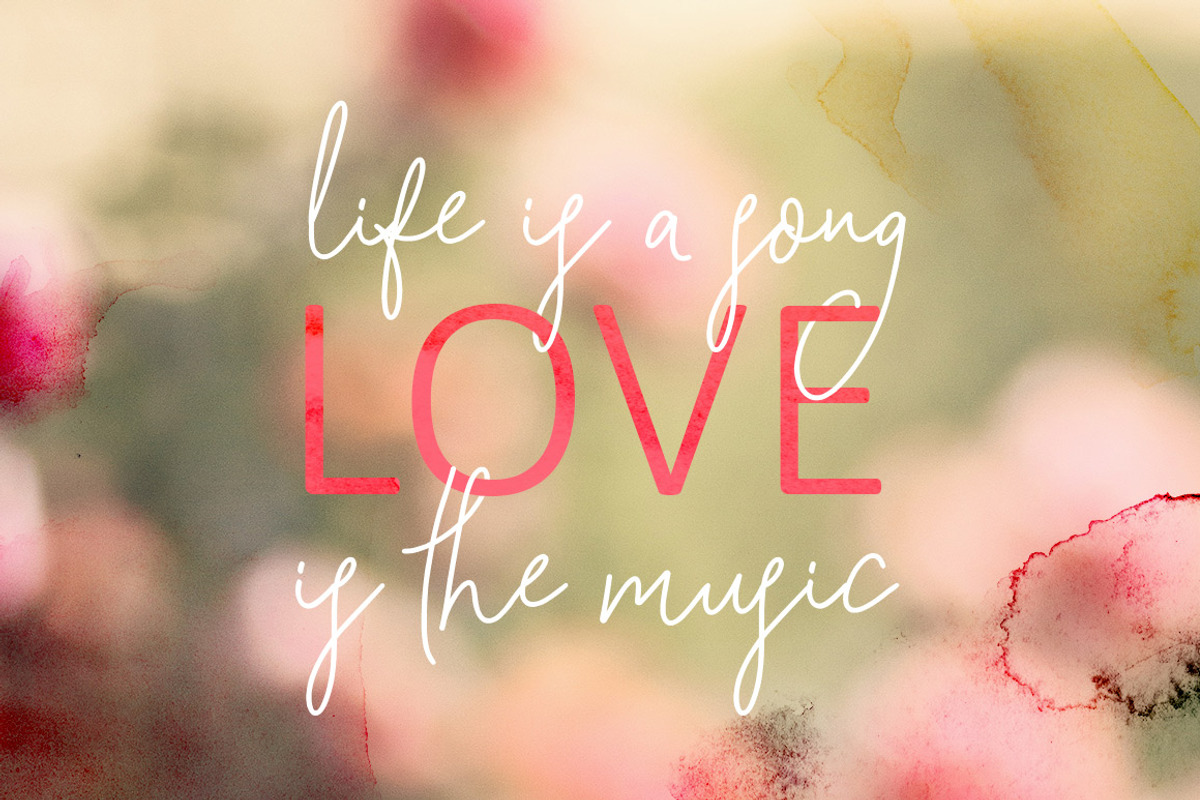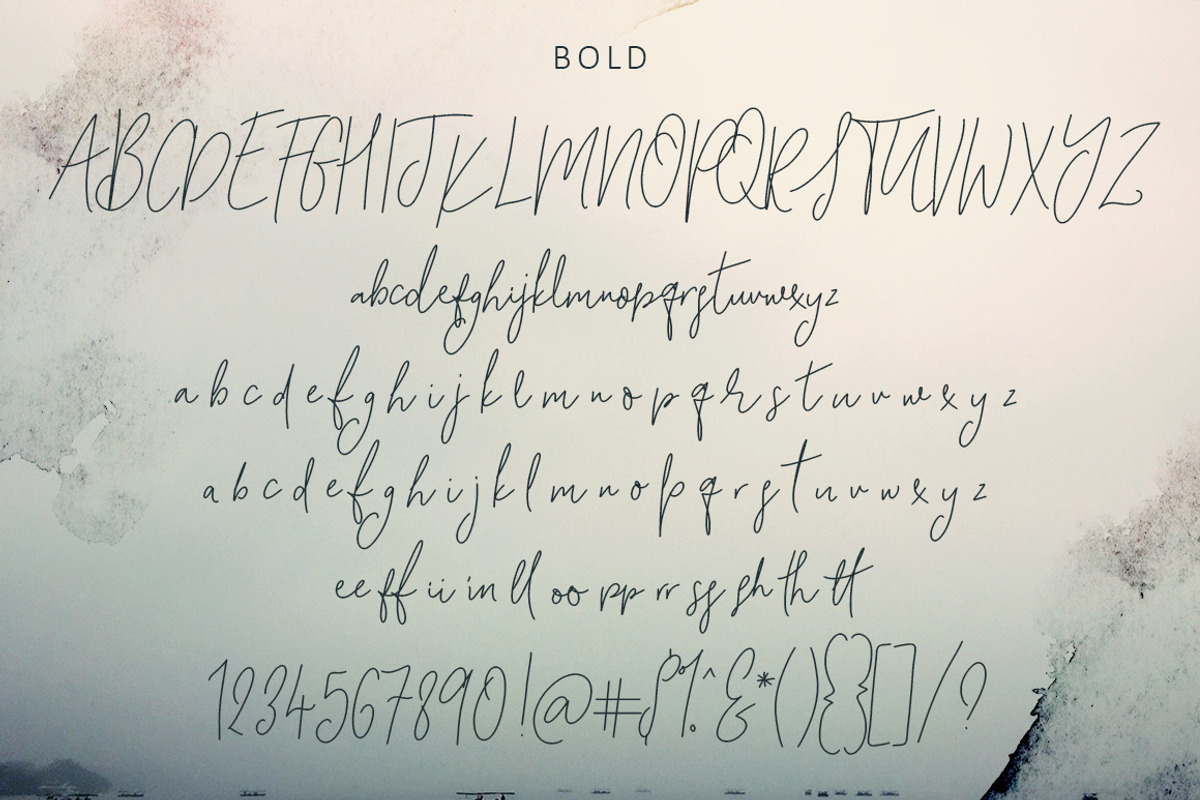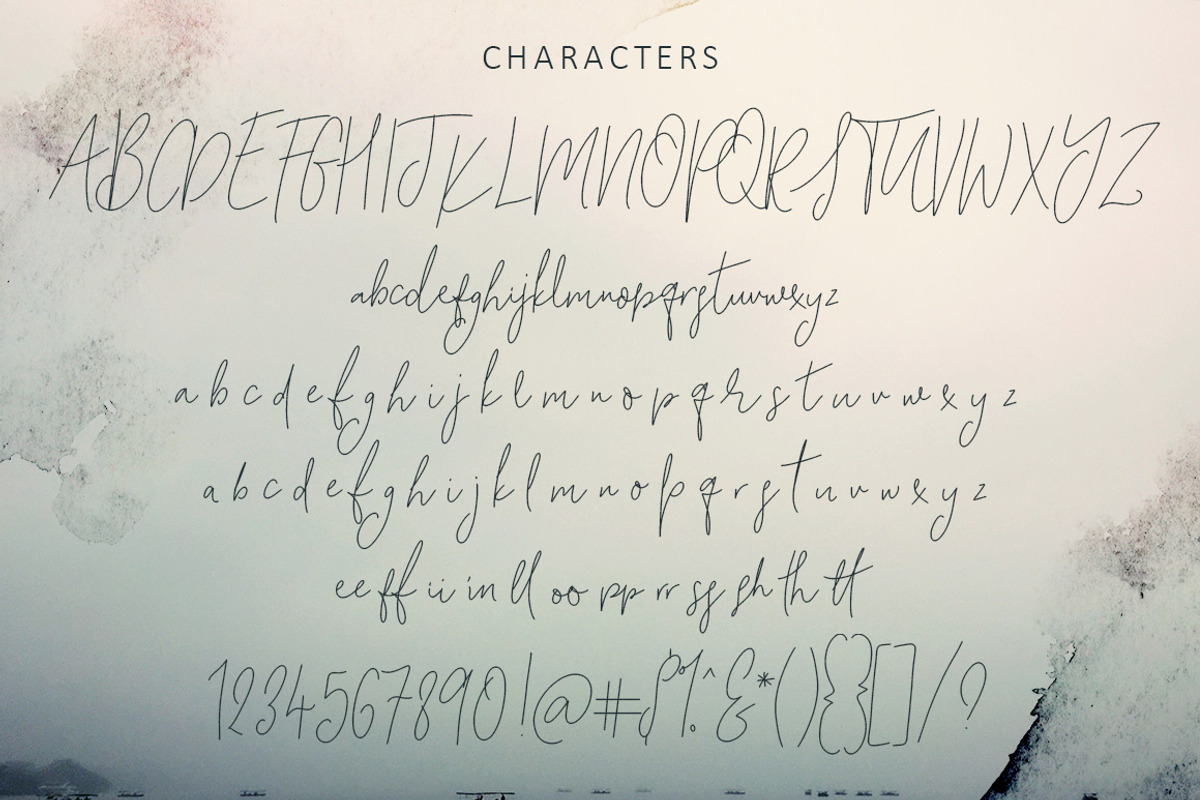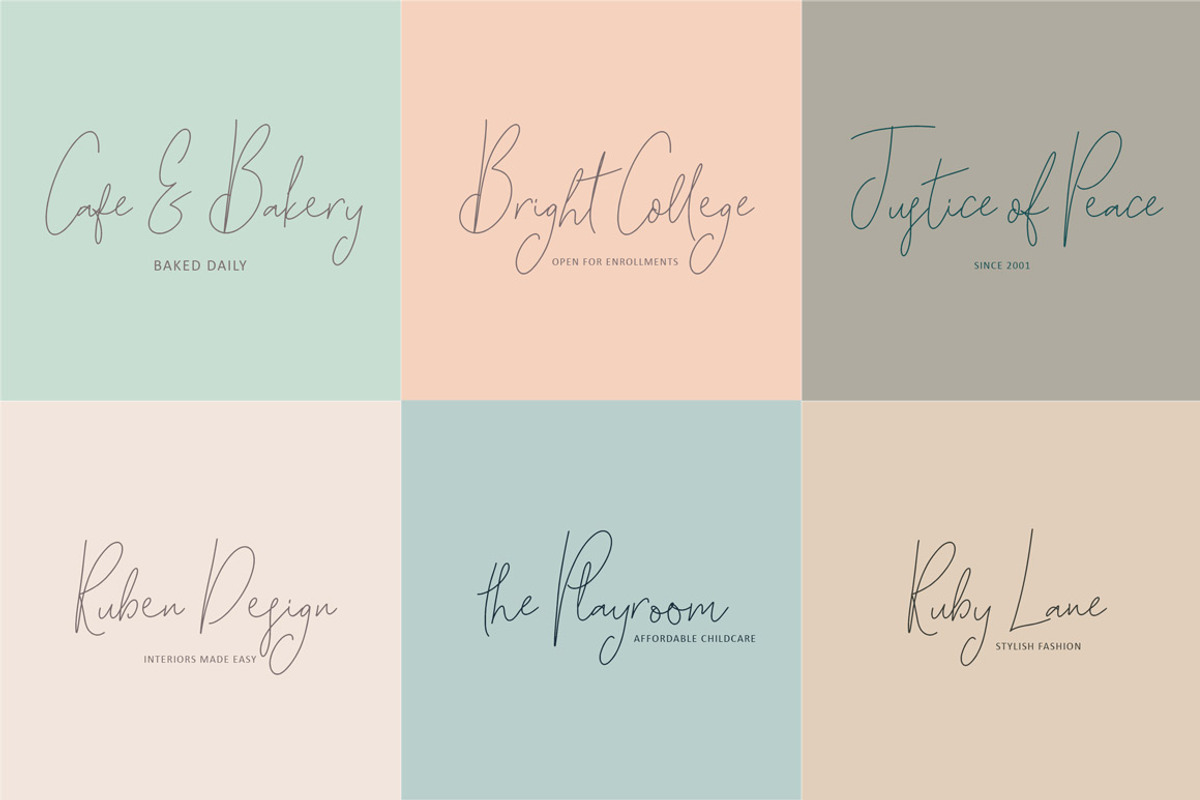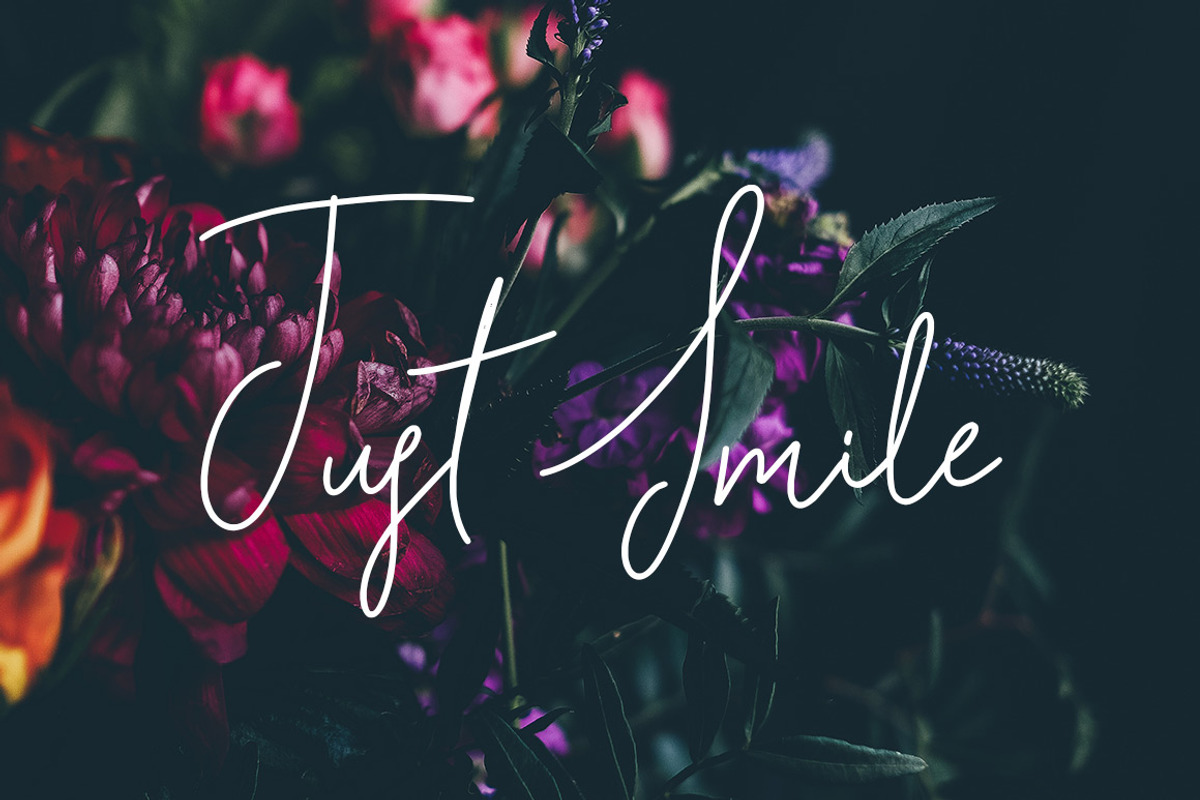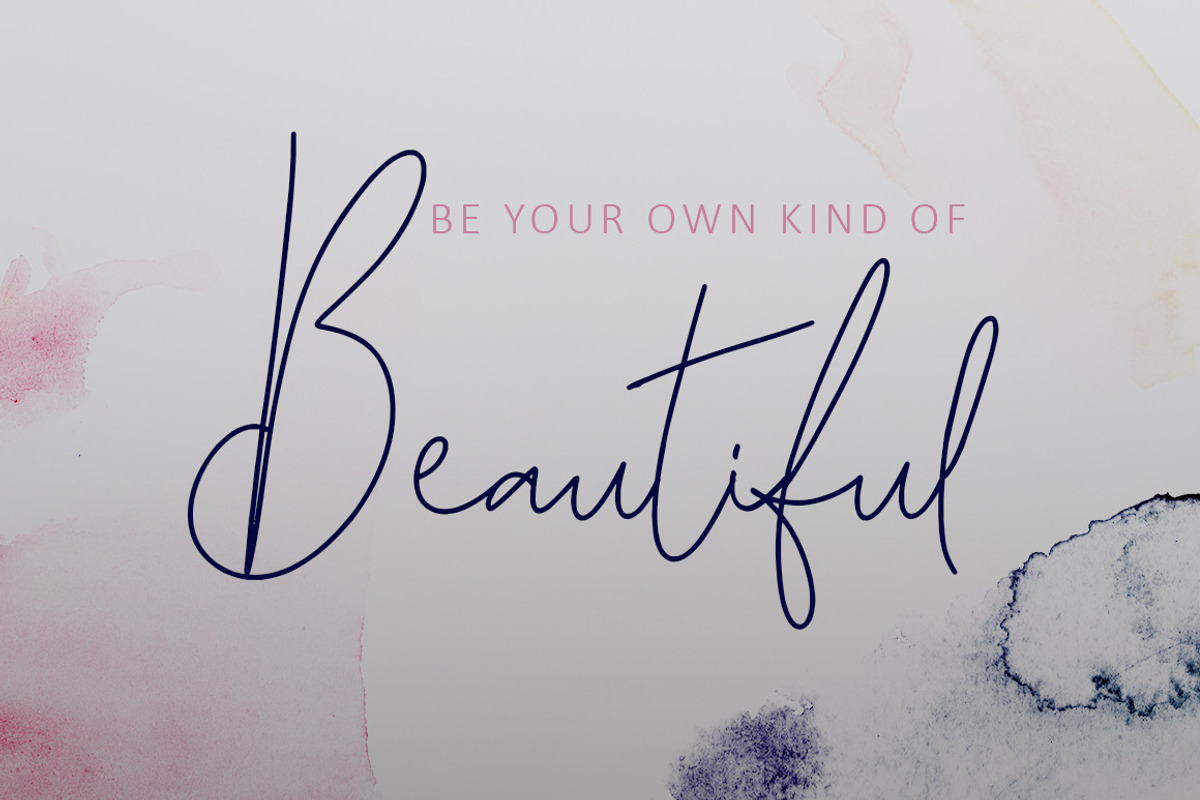
Song of the River Script Font
Introducing Song of the River script font.
This is a beautiful flowing hand written script suited to weddings, invites, quotes, social media, blogs, websites, book titles, and so much more!
Song of the River comes in regular, bold and italic.
- Includes alternates and double ligatures.
- Includes international characters.